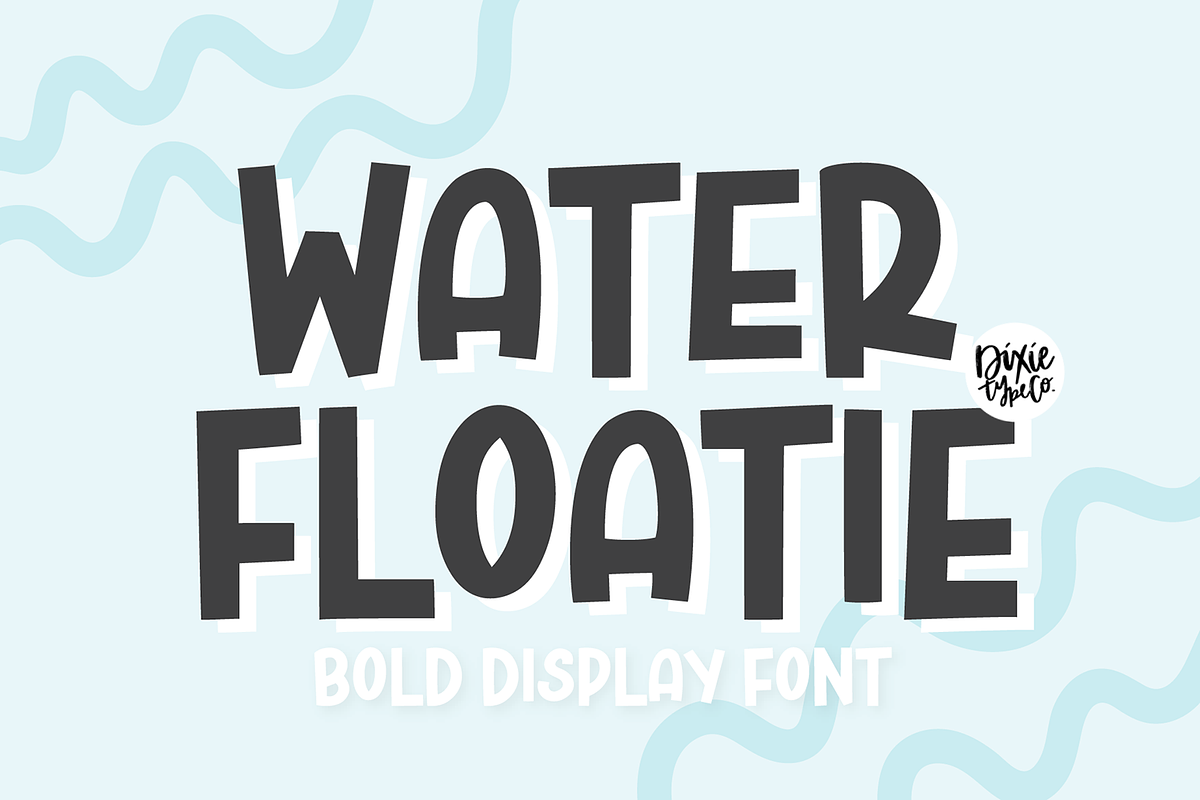
WATER FLOATIE Display Font Free Download
Add a splash of fun and playfulness to your designs with WATER FLOATIE Display Font Free Download — a unique and vibrant display typeface perfect for beach-themed projects, summer promotions, party invitations, and any design that needs a lighthearted and bubbly feel.
With its rounded, fluid shapes and lively energy, WATER FLOATIE brings a refreshing and cheerful vibe to your typography. It includes uppercase and lowercase letters, punctuation, numerals, and multilingual support, offering you the flexibility to use it across various creative projects.